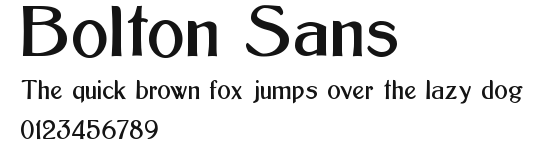
• Font Name: Bolton Sans
• Full Font Name: Bolton Sans
• Designer: PJLF
About Bolton Sans.ttf
Bolton Sans.ttf is a modern, elegant sans-serif font designed for ultimate readability and visual harmony. Perfect for branding, headlines, web design, and print materials.